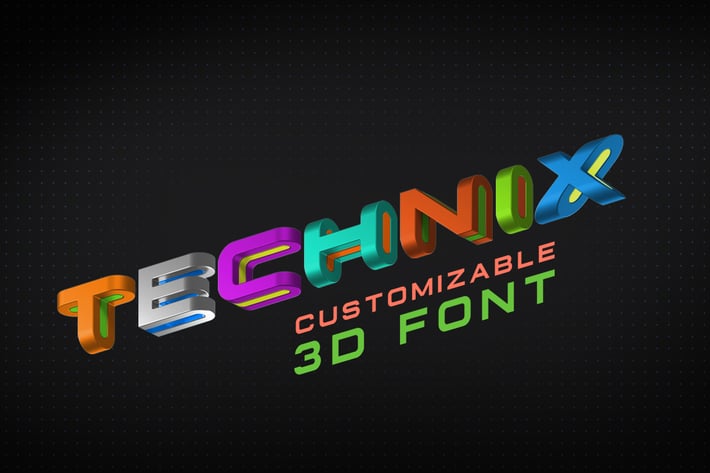
Technix Font 3D Technology Space Science Game
Technix Font 3D is RASTER high resolution editable Letters on Transparent background.
You can easily and quickly edit colors, change shader (Plastik or Metal) to create your own Lettering Composition.